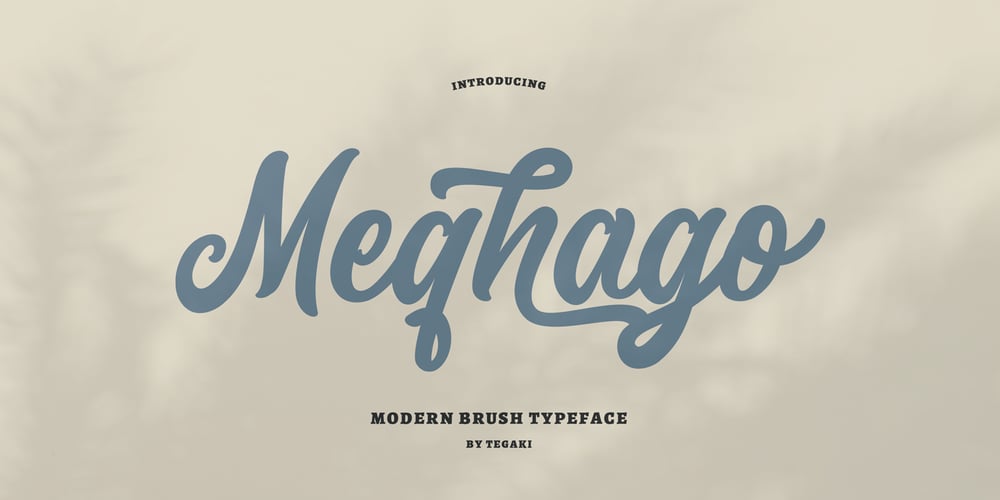
Meqhago Font Family was designed by Rudi Suhairi and published by Tegaki. Meqhago contains 1 styles and family package options. Meqhago created with stylish and modern brush characters. Meqhago is a modern brush script font that comes with Extended Latin Characters. This font was PUA encoded. Meqhago works perfectly for logos, display, product branding, wedding invitation card, stationary, packaging, clothing, flyer, apparel, magazines, brochures, lable, posters, badges, etc.Meqhago comes with 272 glyphs and 54 alternate characters contain with opentype features. Meqhago also comes with standard ligatures that allowing you to make stuff looks more exclusive and pro standard.If you need help or advice, please contact me by e-mail “tegakiscript@gmail.com”Thank you for your purchase!